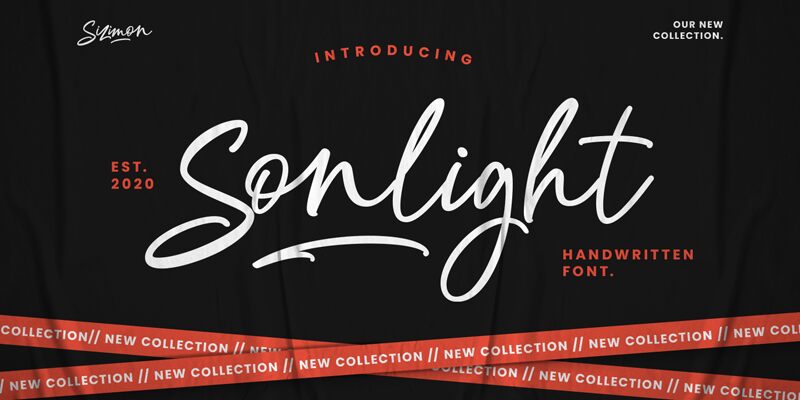
Sonlight Script is a beautiful handwritten font designed by Sizimon.id. Its semi-light weight creates an elegant and delicate feel, perfect for wedding invitations, greeting cards, or any project that requires a touch of sophistication. The flowing and organic strokes give this font a personal touch, making it suitable for projects that require a more intimate and casual feel, such as personal blogs or social media posts. Whether you're creating branding for your business or designing graphics for your website, Sonlight Script is the perfect font to add a personal touch to any project.